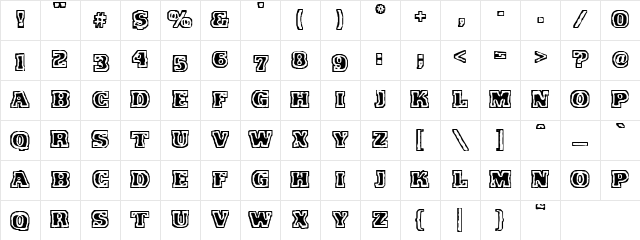
VTC FunkinFrat has an approachable, lighthearted character - its loose, expressive forms are well-suited to children's content, casual branding, and fun-first design.
Font Pairing: Pairs well with a rounded or humanist sans for body copy, maintaining the friendly tone without relying on VTC FunkinFrat to carry extended reading.
Pro Tip: Use VTC FunkinFrat at larger display sizes where its expressive character can land. Pair with a clean, simple sans for body copy to maintain readability.